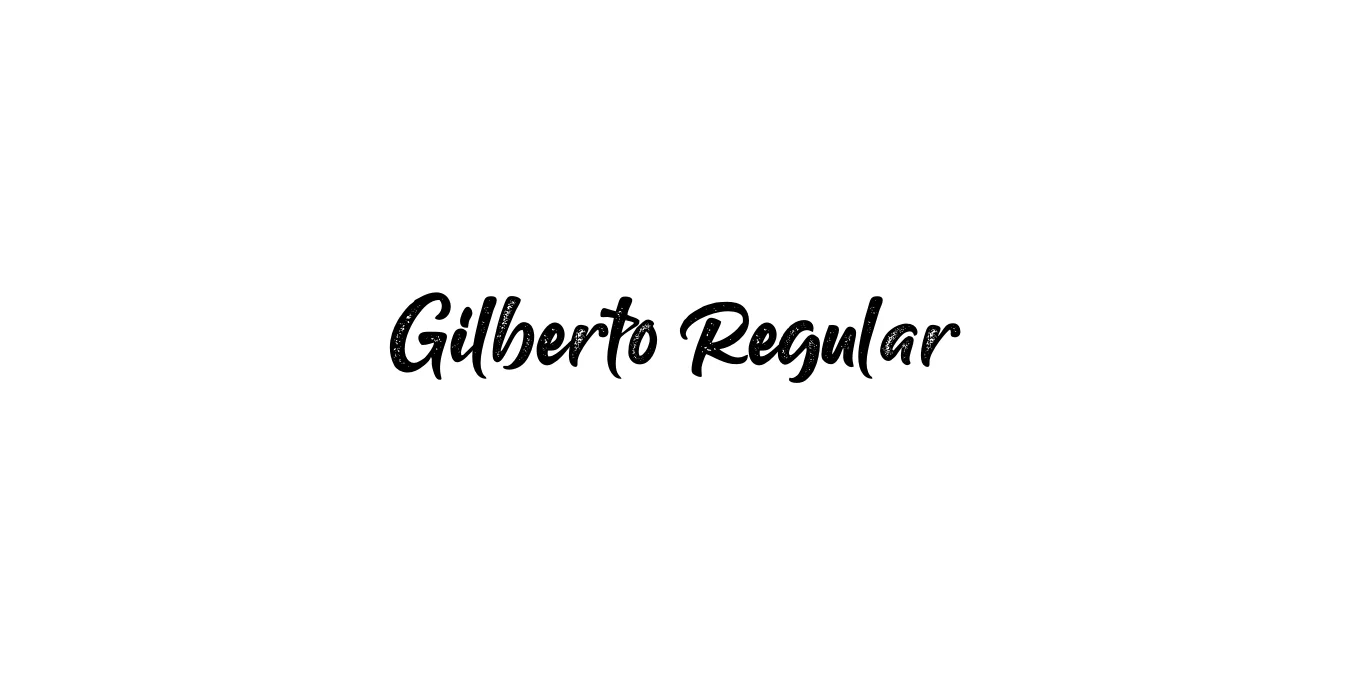
Gilberto Regular
Designed by Måns Grébäck
Gilberto Regular is a sophisticated and fluid script font designed by the renowned typeface creator Måns Grébäck. This font is characterized by its elegant, sweeping strokes and a rhythmic flow that mimics high-end calligraphy. It was crafted to provide a sense of luxury and personal touch, making it a standout choice for designers looking to convey exclusivity and grace in their visual communication.
The structural design of Gilberto Regular focuses on connected letterforms that maintain legibility even at smaller sizes, although it truly shines in large display formats. Its modern yet classic aesthetic makes it incredibly versatile for high-fashion branding, editorial design, and artisanal product packaging. As a contemporary script, it balances the spontaneity of handwriting with the precision of digital typography.
Gilberto Regular Best Uses
Perfect for invitations, envelopes, and place cards seeking a romantic and formal look.
Ideal for fashion brands, boutique labels, and personal signatures.
Excellent for pull quotes or decorative headings in luxury lifestyle magazines.
Adds a premium, artisanal feel to cosmetics, wine labels, and high-end confectionery.